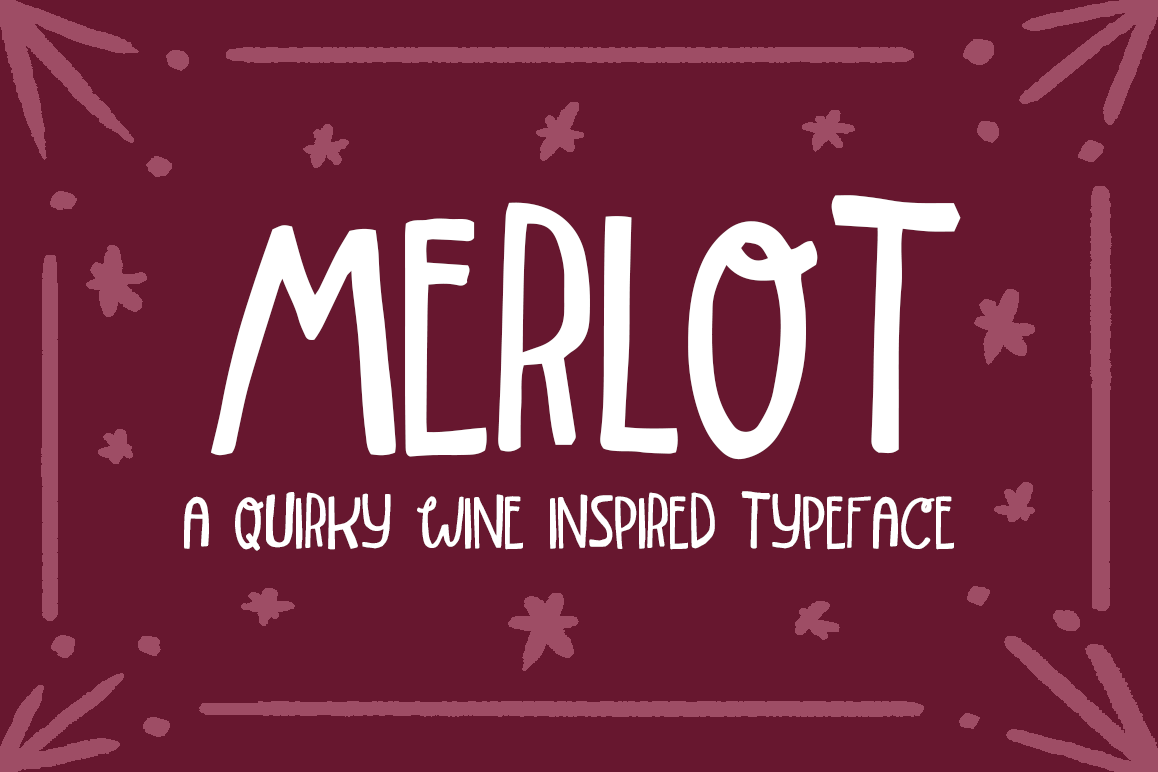
Merlot Font
A new hand lettered typeface inspired by merlot! Create prints, cards and packaging that looks hand lettered!
This typeface was hand drawn from scratch and is guaranteed to look like you drew the lettering yourself. With two different styles, you're bound to have endless hours of fun.
This set includes the basic alphabet for both styles. Numbers and punctuation as well as another style will be added at a later date!